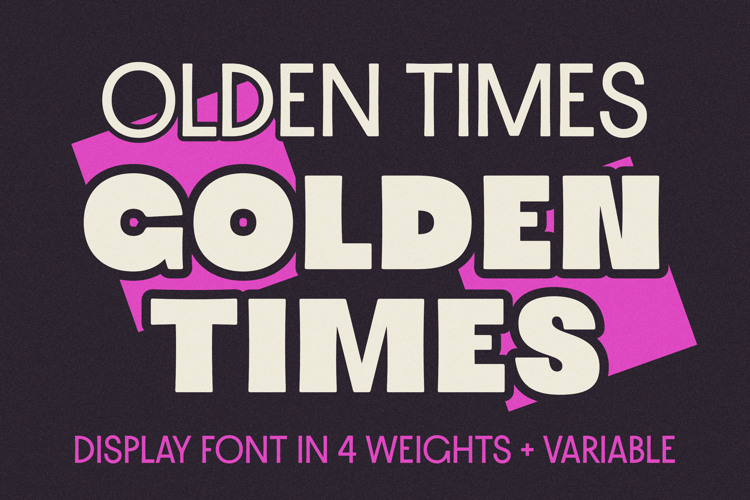
Olden Times Golden Times Font
Olden Times Golden Times is a display typeface with a vintage feel. That's it. It's perfect for logos, branding, book covers, posters and such.